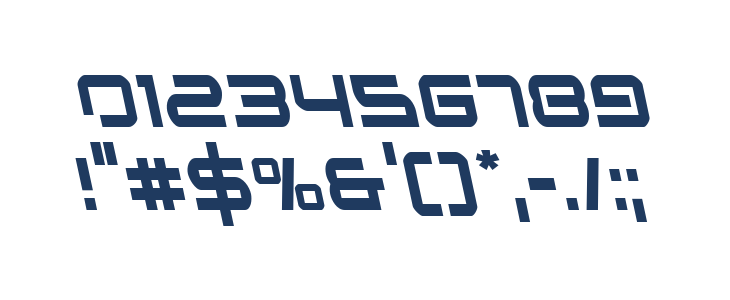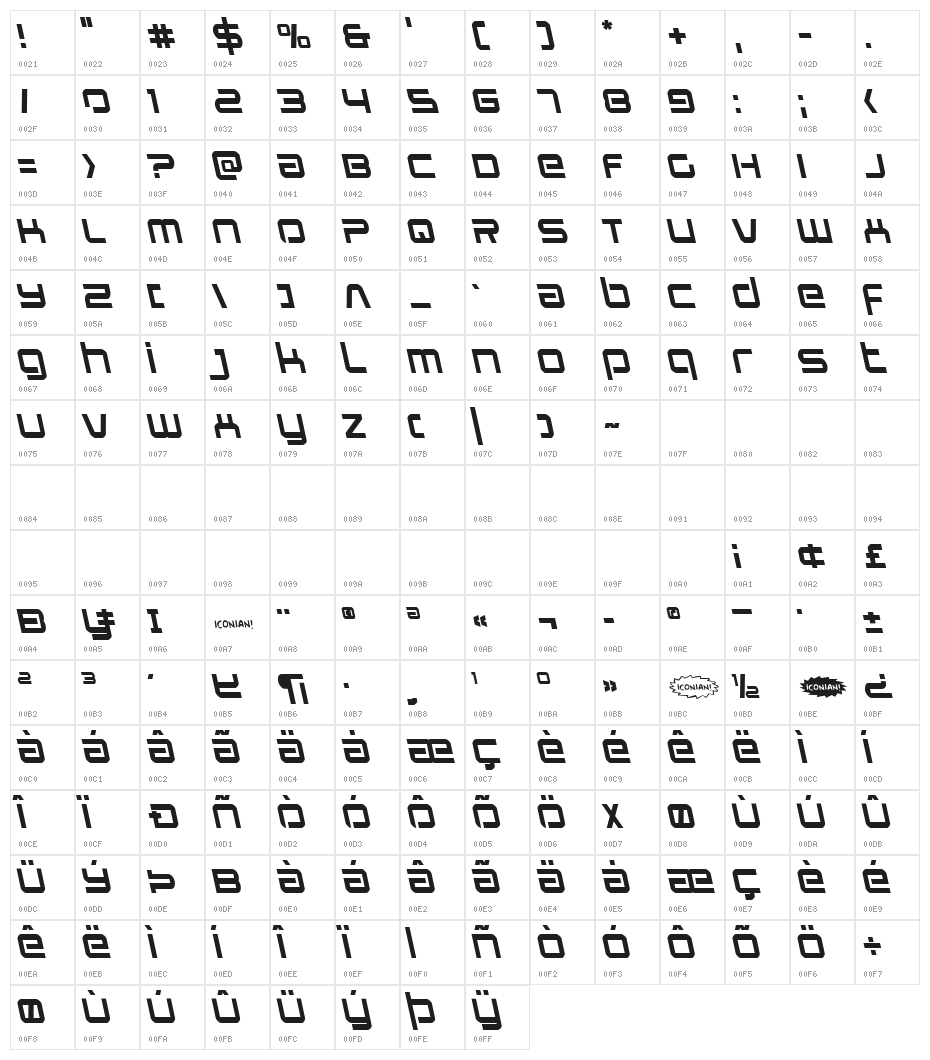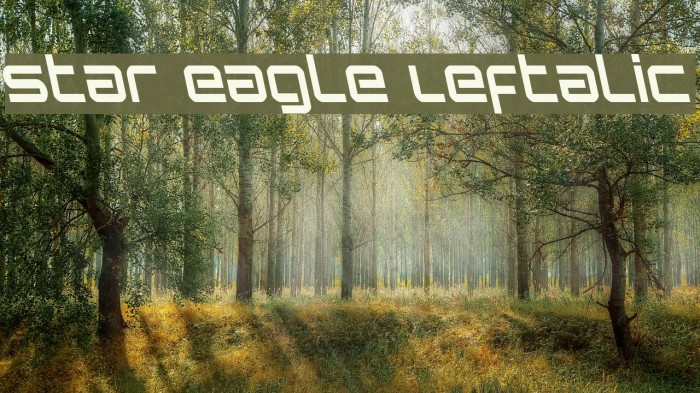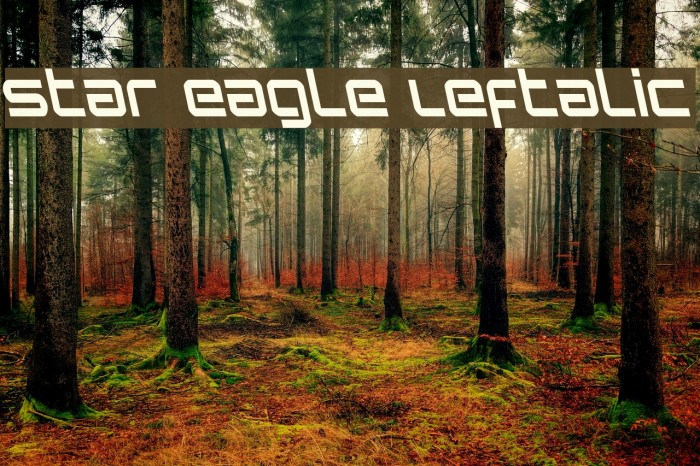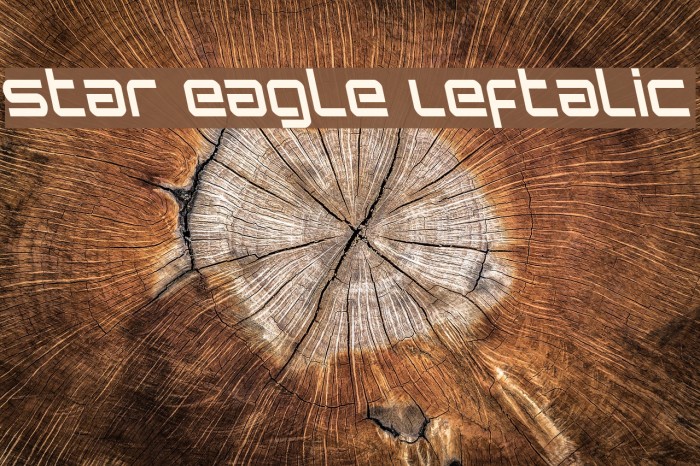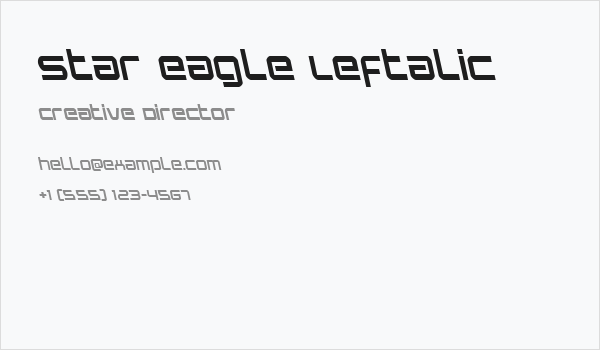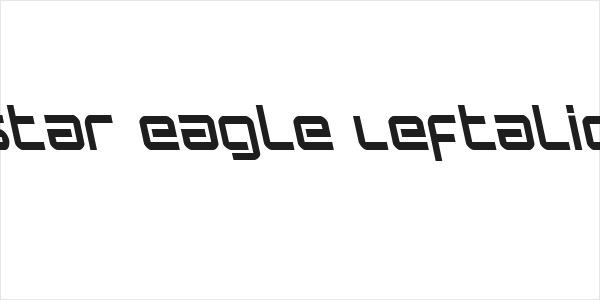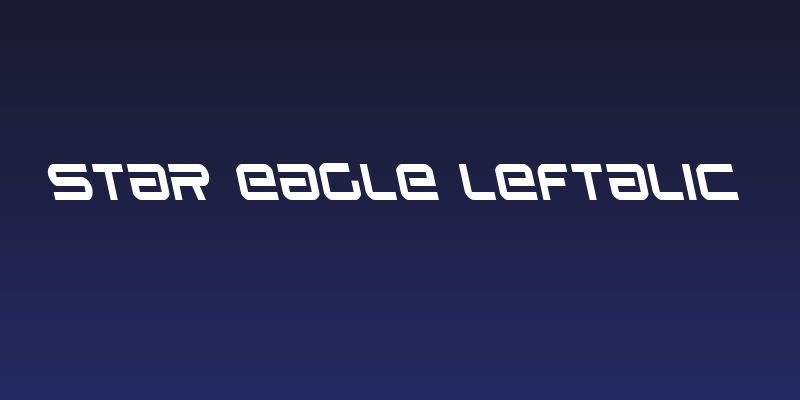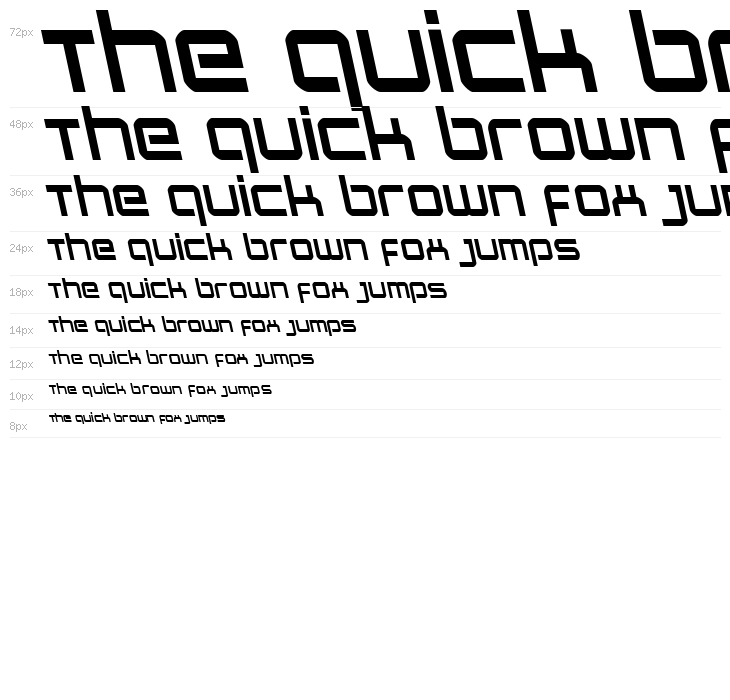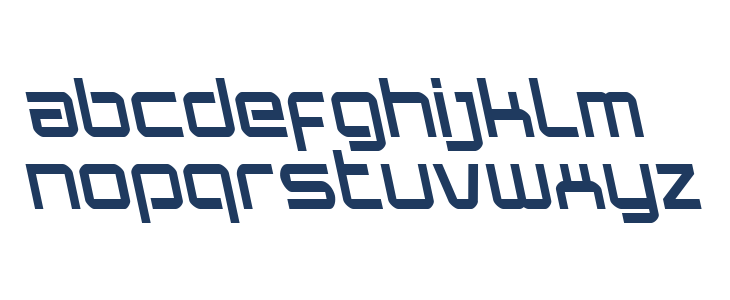
Star Eagle Leftalic Font
Star Eagle Leftalic Description
This font exhibits a futuristic and angular design, characterized by its geometric shapes and sharp edges. The letters are slightly slanted, giving a dynamic and forward-moving appearance. The uppercase and lowercase letters maintain a consistent style, with a uniform thickness that adds to its bold presence. The numerals and special characters follow the same design principles, ensuring a cohesive look across all glyphs. The font's unique style makes it stand out, suitable for projects that require a modern and edgy aesthetic.
| Proposed Projects | Ideal for sci-fi themed projects, technology branding, video game titles, and modern posters. |